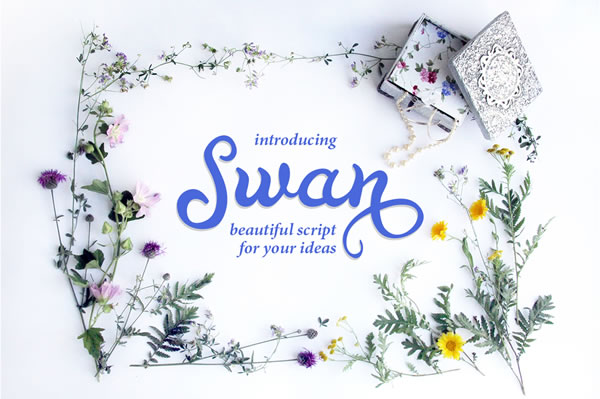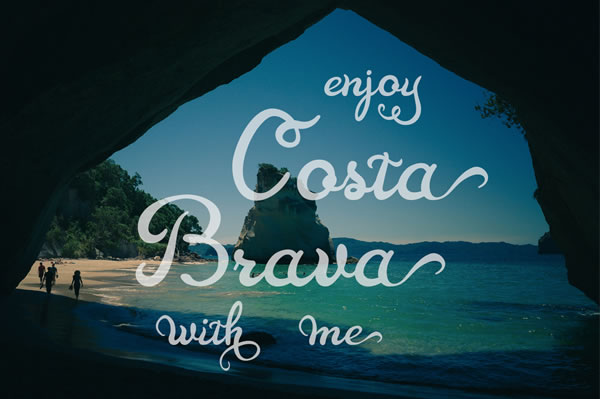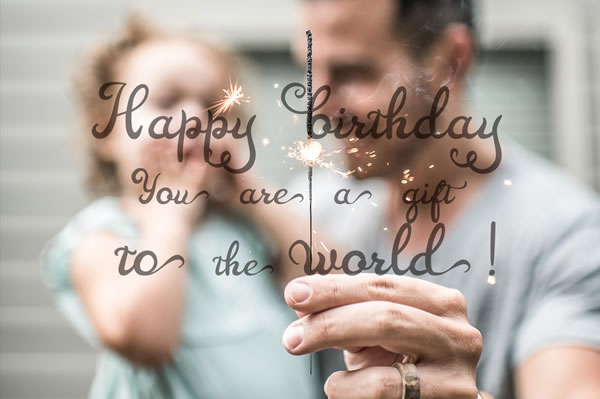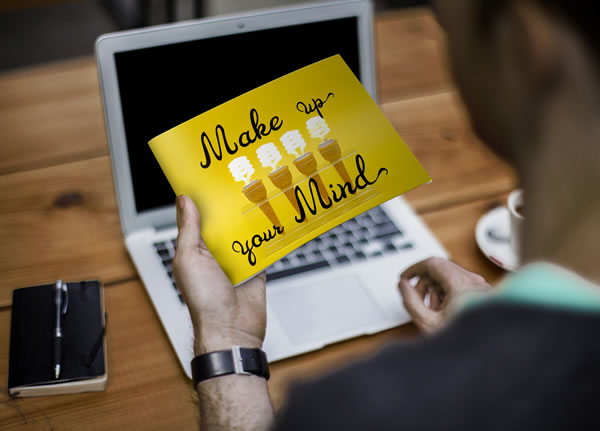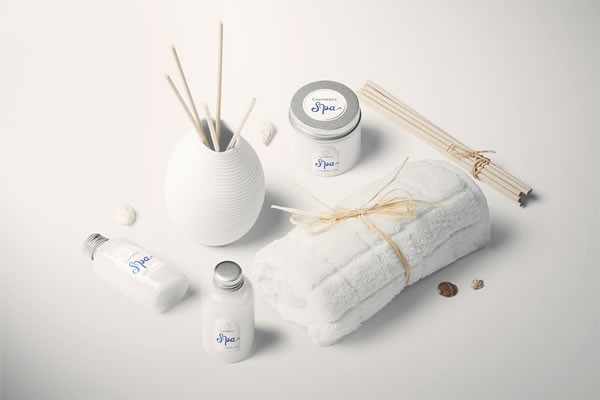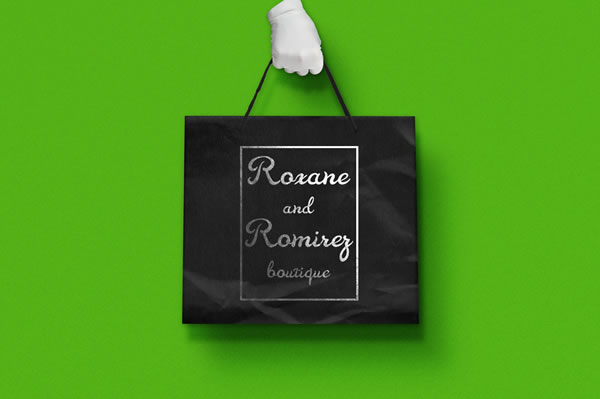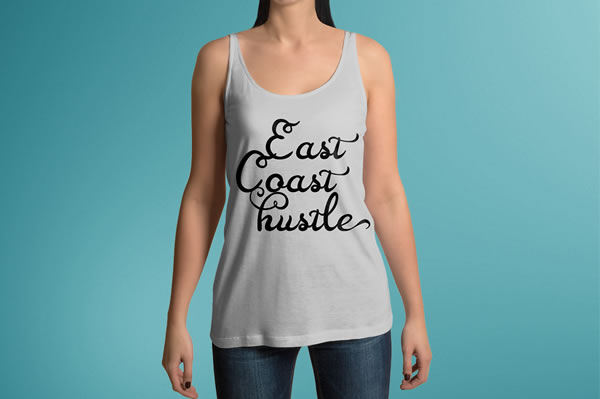
Swan Font
About Swan Font
Swan is a fluid calligraphy-inspired handwritten font created by Etewut.
The Swan font contains a set of awesome alternate characters with stunning swashes. This font is PUA encoded and works with any application, including Cricut Design Space, PicMonkey, Silhouette Studio, MS Word and many many more.